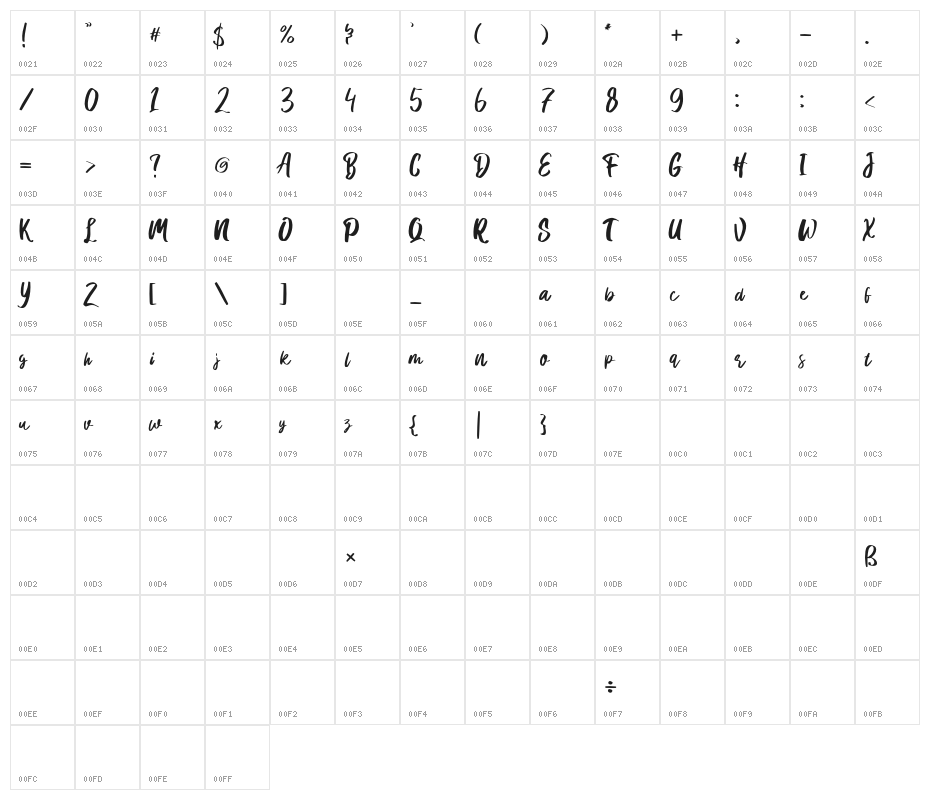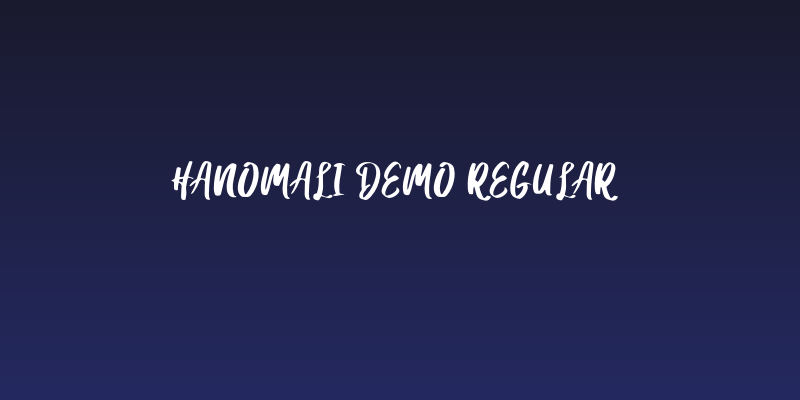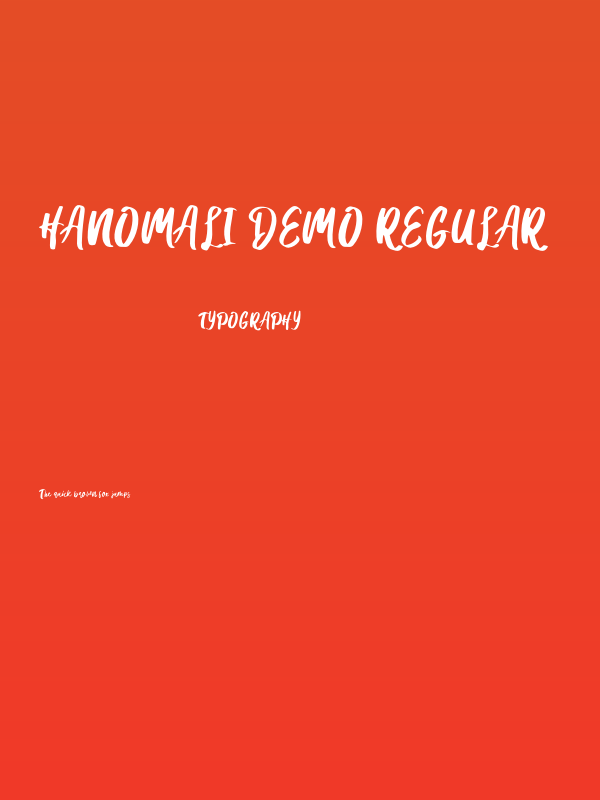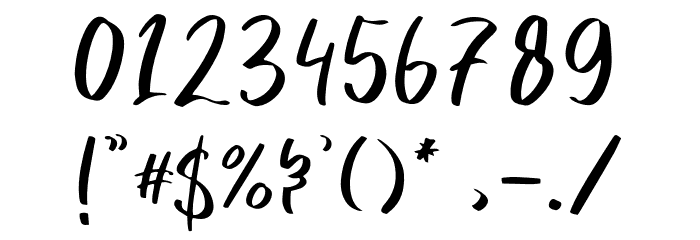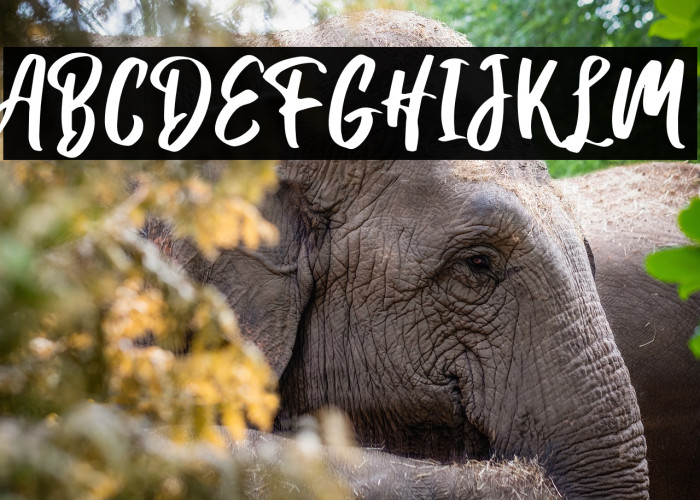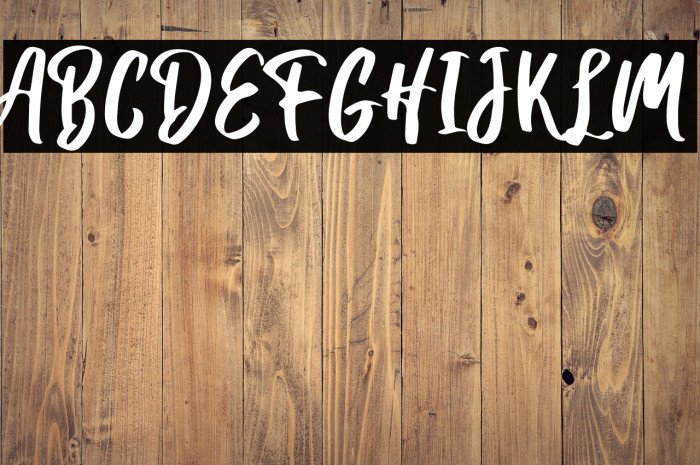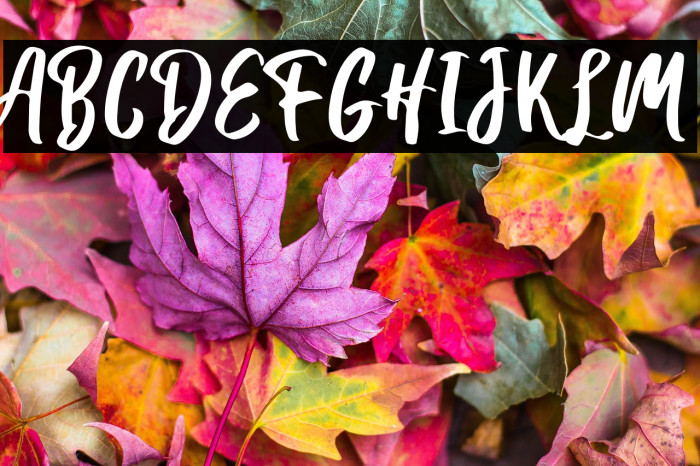
Hanomali Demo Regular Font
Hanomali Demo Regular Description
This font features a bold and expressive handwritten style, characterized by its fluid and dynamic strokes. The uppercase letters exhibit a strong presence with their thick lines and slight slant, while the lowercase letters maintain a cohesive flow with a more delicate touch. The numerals are consistent with the overall style, offering a playful yet legible appearance. Special characters are creatively integrated, adding to the font's versatility. The overall design exudes a modern and artistic flair, making it suitable for a variety of creative applications.
| Use Case | Logos, Headlines, Artistic projects |
| Proposed Projects | Ideal for branding, invitations, greeting cards, and artistic projects where a personal touch is desired. |